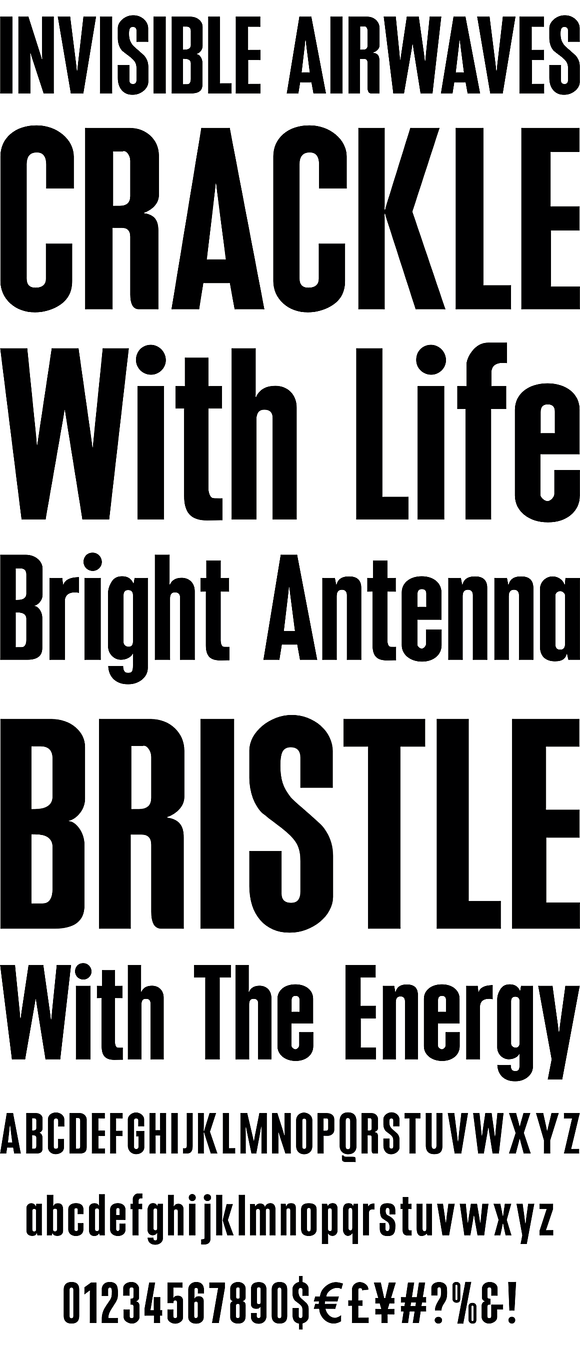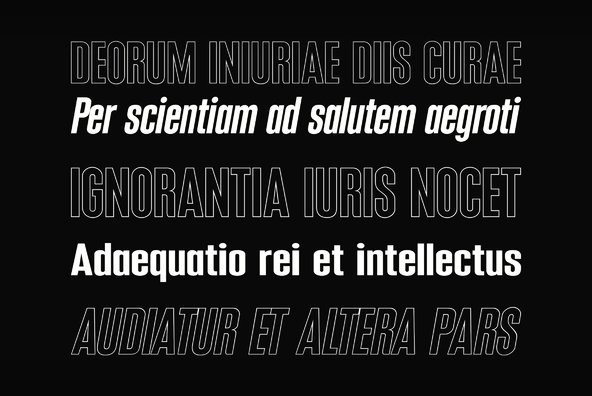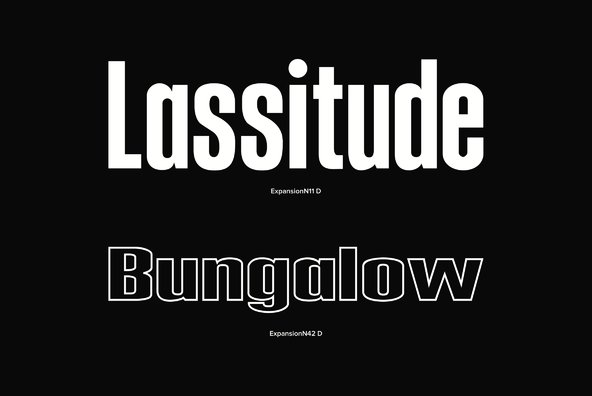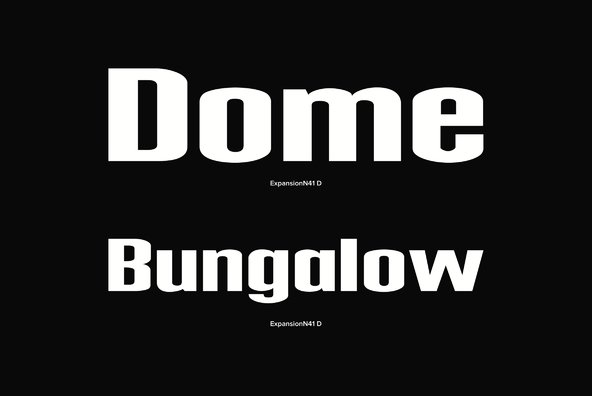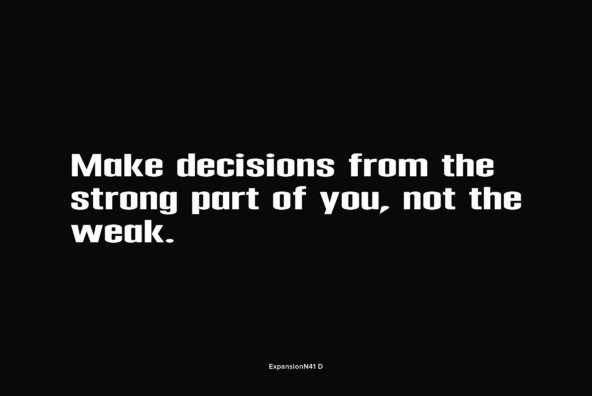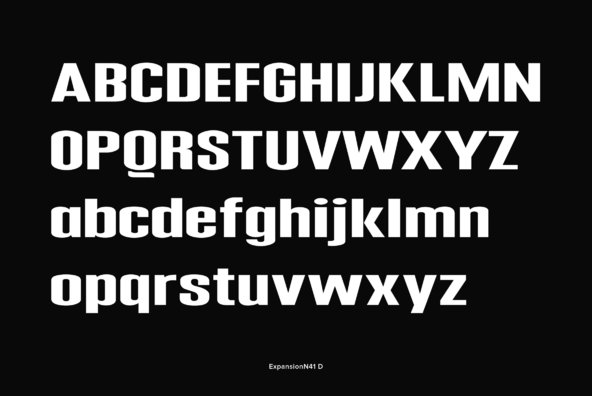
Expansion is a clean and simple sans-serif designed by Claudia Kipp in 2004. Although being designed in 2004, Expansion contains a certain mid-1900's, American feel to it. Works great in corporate, clean and masculine oriented projects.